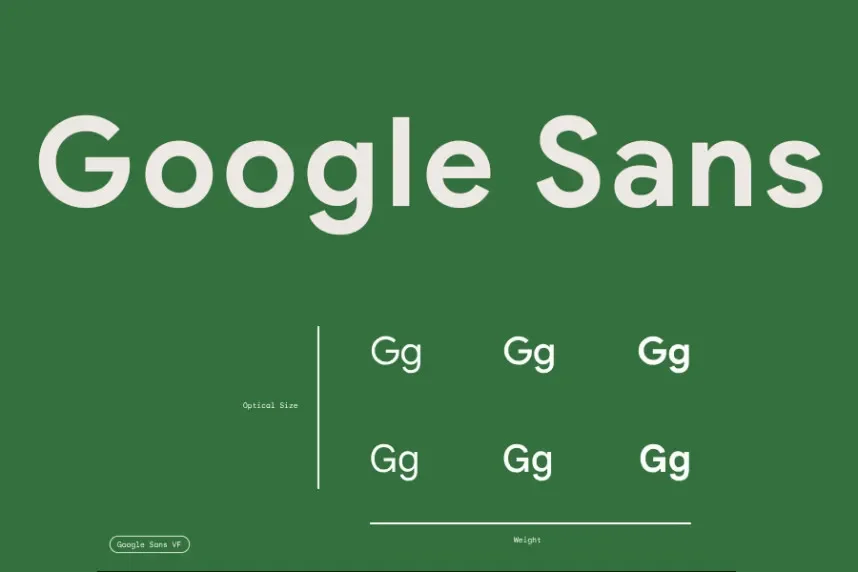
Google Sans Font is a geometric sans-serif typeface designed to address readability and brand consistency across digital and print projects. Its clean, neutral letterforms ensure text clarity in UI design, headings, logos, and corporate branding while maintaining professional visual balance.
The typeface features even stroke weights, open counters, and well-proportioned spacing. Rounded terminals and smooth curves enhance legibility, making it suitable for small interface elements as well as large-scale displays. Google Sans is optimized for multiple platforms, including web, mobile, and print.